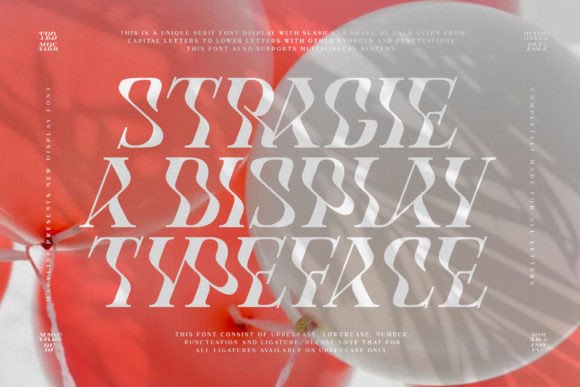
Introducing Stragie Font - the perfect choice for website companies seeking to add an extra layer of creativity and uniqueness to their branding. This stunning display font, created by Maculinc, is unlike any other font you've ever seen before. It's quirky, interesting, and guaranteed to make your website stand out from the crowd.
With its eye-catching design and versatile nature, Stragie Font is the ultimate tool for businesses looking to take their branding to the next level. Whether you're a startup or an established company, this font has the power to captivate your audience and leave a lasting impression.
One of the best things about Stragie Font is its versatility. This font looks incredible on a wide variety of contexts, making it the perfect choice for everything from logos to headlines. Whether you're looking to create a bold and attention-grabbing header or a sleek and sophisticated logo, Stragie Font has got you covered.
But what really sets Stragie Font apart is its unique and interesting design. This font is full of character and personality, making it the perfect choice for businesses that want to stand out from the crowd. With its slightly quirky feel, Stragie Font is sure to make a lasting impression on anyone who sees it.
So if you're looking for the best font for your website company, look no further than Stragie Font. This font is the perfect choice for businesses that want to elevate their branding and create a memorable impression on their audience. Don't settle for a boring and generic font - choose Stragie Font and take your website to the next level!